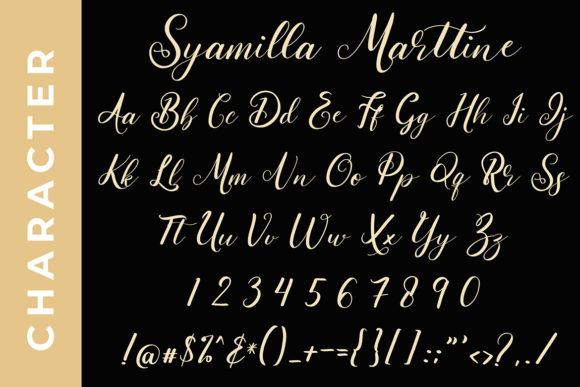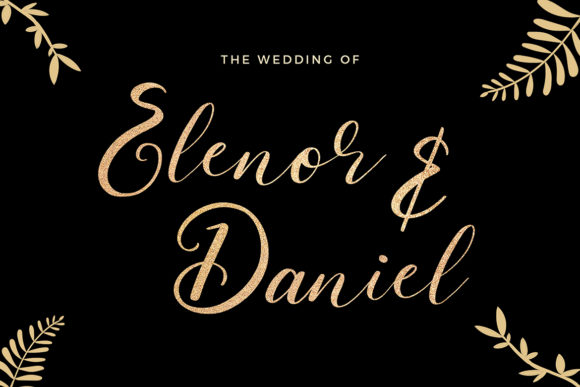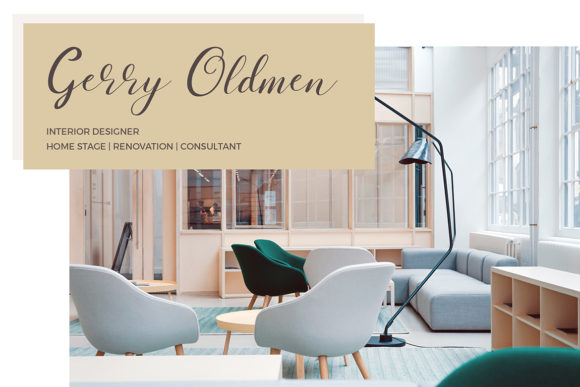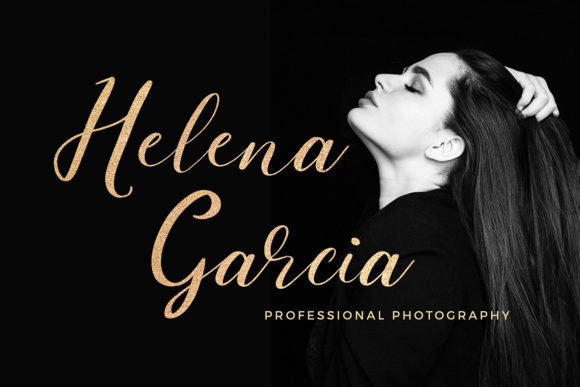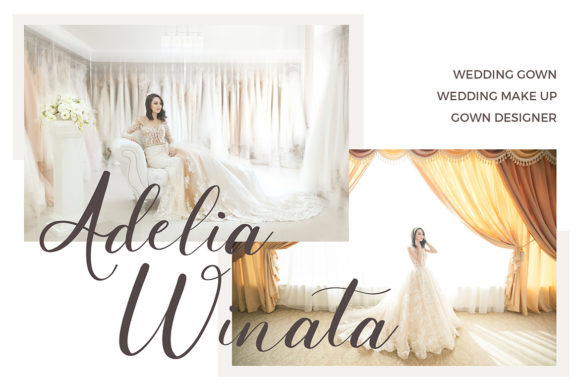
Syamilla Marttine Font
About Syamilla Marttine Font
Syamilla Marttine is a sympathetic and incredibly elegant script that bursts with charm. Its rich swashes will add a bold spin on any romantic design idea.